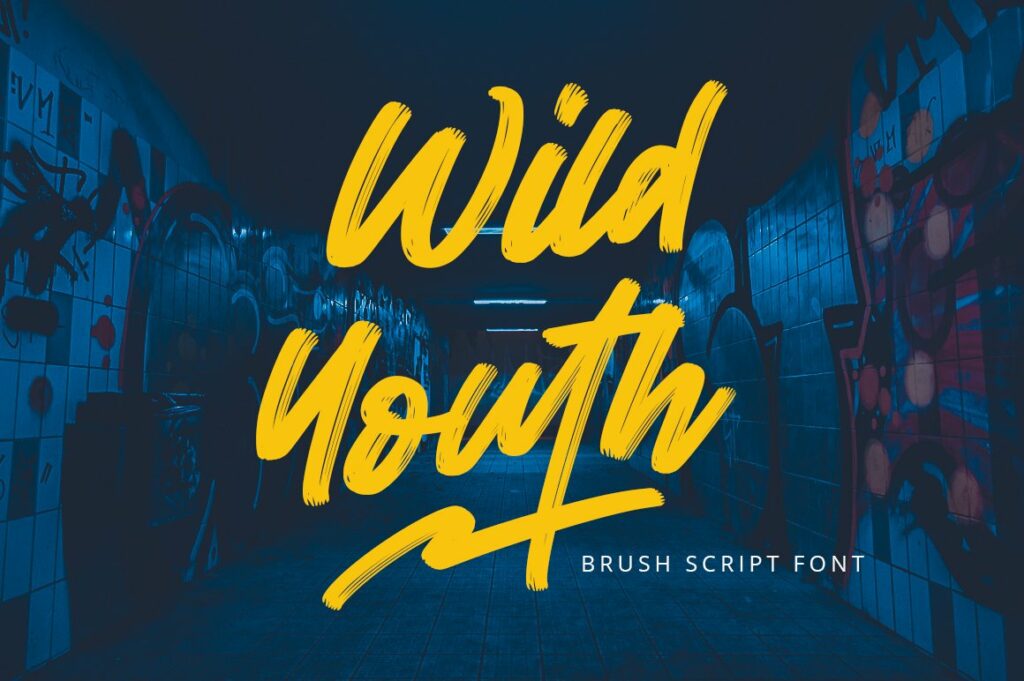
Wild Youth Font
Wild Youth Brush Script Font is a handwritten brush font with a unique, quirky and versatile style. It is perfect to use in all your design projects, be it logos, signatures, labels, packaging designs, quotes, heading titles, movie titles and much more. No matter the setting, Wild Youth will make your text stand out!
Wild Youth Brush Script Font